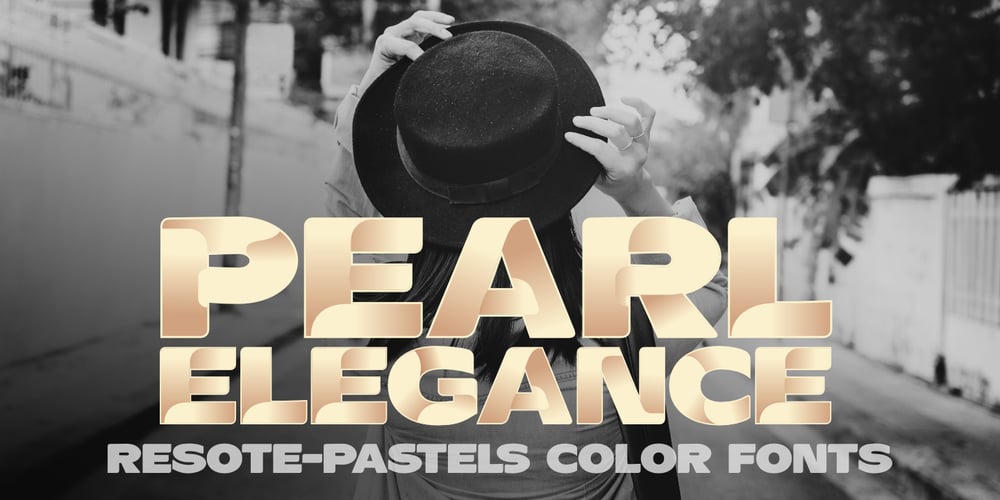
ResotE
ResotE font
ResotE Font Family was designed by Grzegorz Łuksza and published by Glukfonts. ResotE contains 6 styles and family package options. ResotE-Pastels family was created inspired by the poetry of natural colors: the elegance of Pearls, the freshness of Mint, romanticism of Lavender and Cherry Blossom. Fully vector color Letters allow you to create any size headers, banners or advertising slogans. Because of the predefined pastel colors, of course, fonts work best on darker backgrounds. Automatic contextual alternates and ligatures built into the fonts compensate for whitespace area differences. Normal OTF ResotE (AllCaps) font is included in the package, which allows you to create text in smaller sizes in style of the ResotE family. Technical info to use: The package contains 6 color font variants in OpenTypeSVG TTF format and a normal TTF font in Black White. To be able to use the color files you need to have installed Adobe Photoshop CC2017, Adobe Illustrator CC2018, Mozilla Fire­fox or Microsoft Edge.